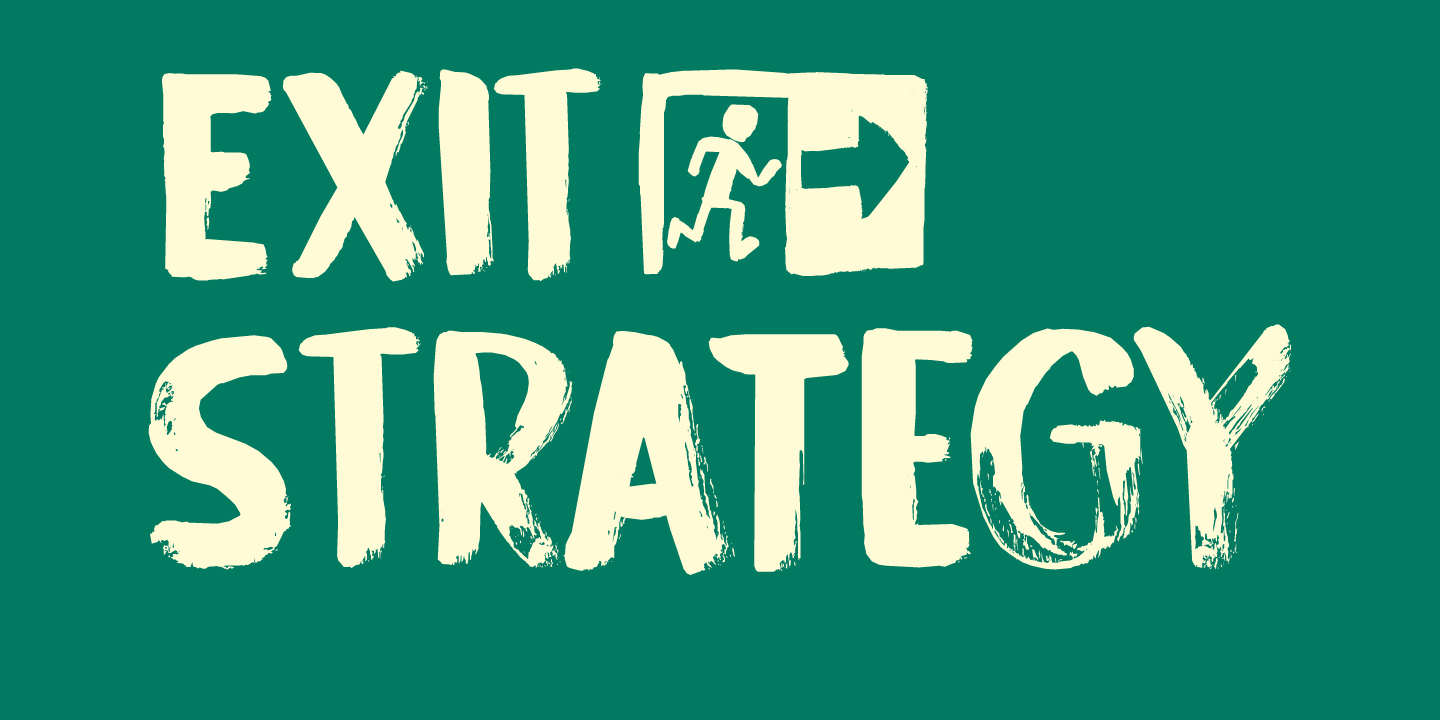
Exit Strategy Font is ideal for emergency signage systems, industrial safety materials, tactical operations graphics, military briefing presentations, crisis management documentation, security company branding, evacuation procedure guides, strategic planning materials, corporate contingency communications, and high-stakes business presentations. This commanding typeface excels in applications where urgency, clarity, and strategic thinking need to be communicated with authoritative precision and mission-critical reliability that ensures clear understanding under pressure.
What makes Exit Strategy Font exciting is its remarkable ability to convey strategic urgency and tactical precision through its bold, no-nonsense letterforms that project confidence and clear-headed decision-making under pressure. The font embodies the essence of strategic planning and emergency preparedness with its structured construction and reliable proportions that suggest careful preparation and systematic thinking. Its carefully engineered character details and tactical personality create an atmosphere of professional competence that resonates with security professionals, emergency responders, and strategic planners who value preparation and decisive action.
The Exit Strategy Font family typically includes Regular, Medium, Bold, and Black weights, each maintaining the signature tactical characteristics and strategic clarity. Some versions offer condensed variants optimized for space-efficient emergency signage and extended styles for high-visibility applications. The family may also include specialized symbols, directional arrows, and emergency notation support designed specifically for safety and security communications requiring maximum clarity and immediate comprehension.
Whether you're developing emergency response systems, tactical communications, or strategic business materials, Exit Strategy Font Free Download delivers the decisive clarity your mission-critical projects demand. Its strategic character and tactical styling make it an essential tool for security professionals, emergency planners, and business strategists working in crisis management, safety systems, and strategic planning sectors where clear communication and reliable information delivery can literally mean the difference between success and failure.